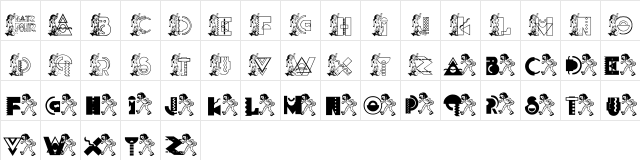
KG FUNKYGIRL Regular
Design Context for KG FUNKYGIRL Typeface
KG FUNKYGIRL trades formality for fun, with bouncy, characterful letterforms that bring warmth and energy to any project.
Font Pairing: Pairs well with a rounded or humanist sans for body copy, maintaining the friendly tone without relying on KG FUNKYGIRL to carry extended reading.
Pro Tip: Use KG FUNKYGIRL at larger display sizes where its expressive character can land. Pair with a clean, simple sans for body copy to maintain readability.